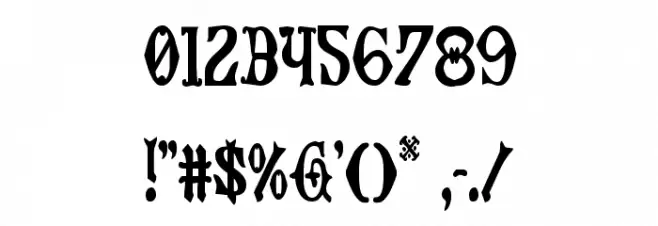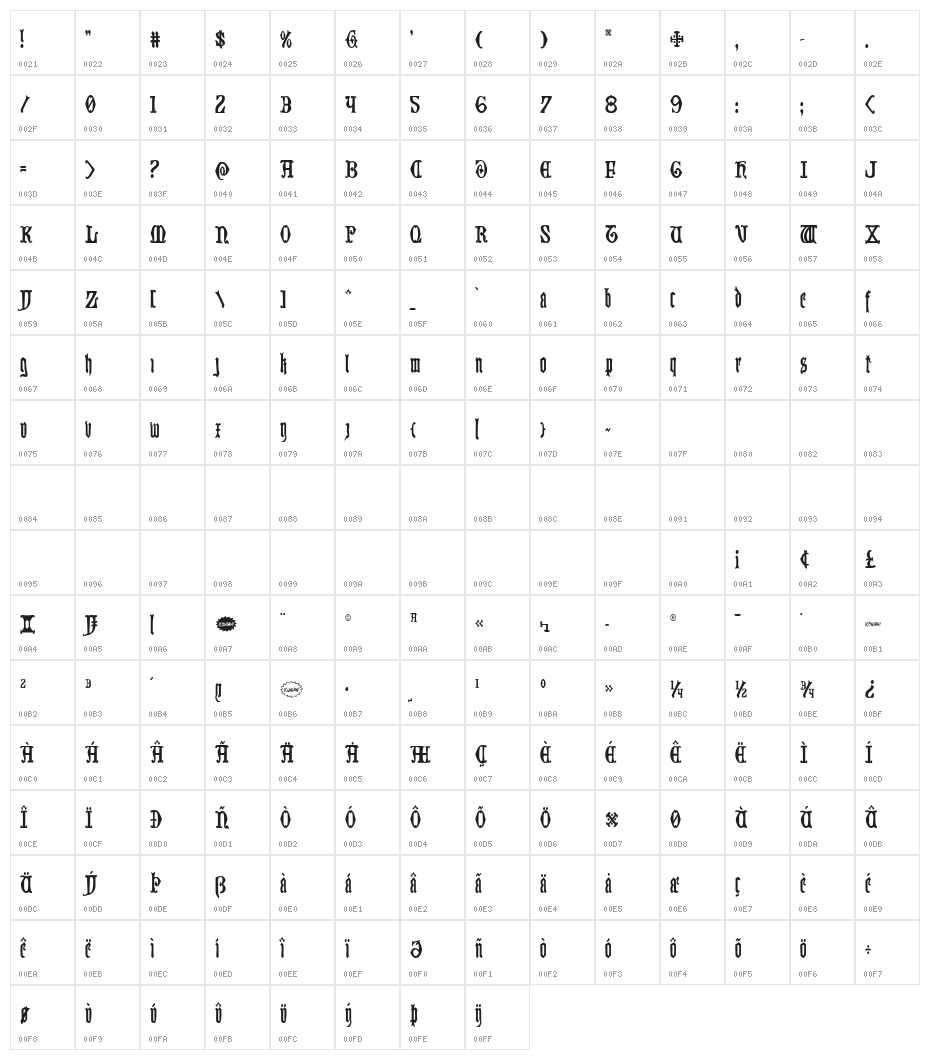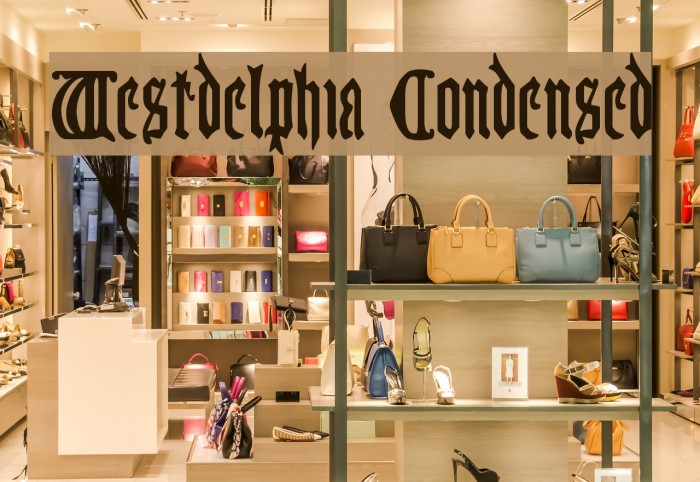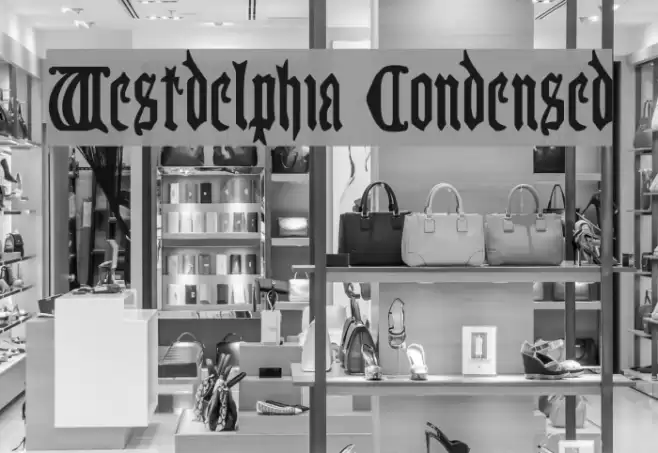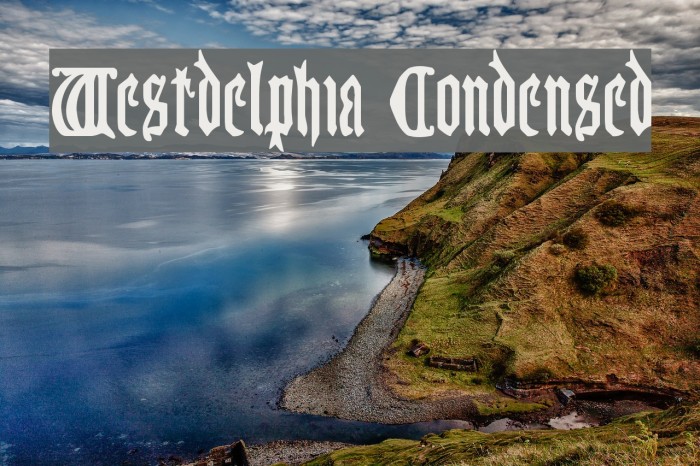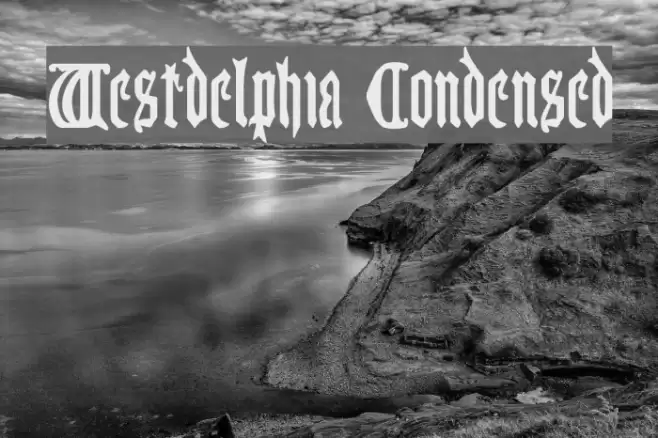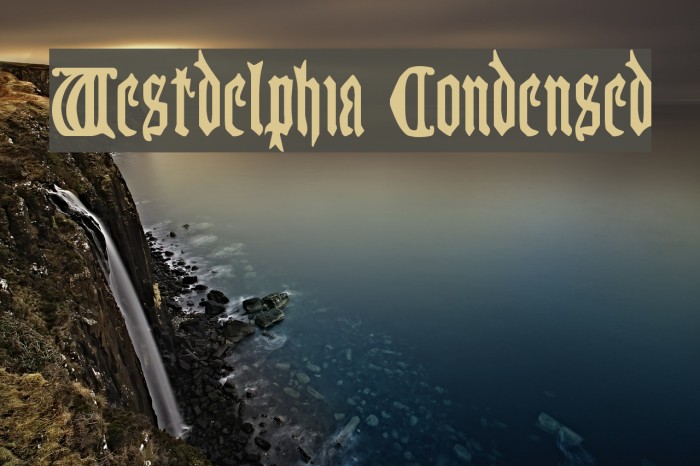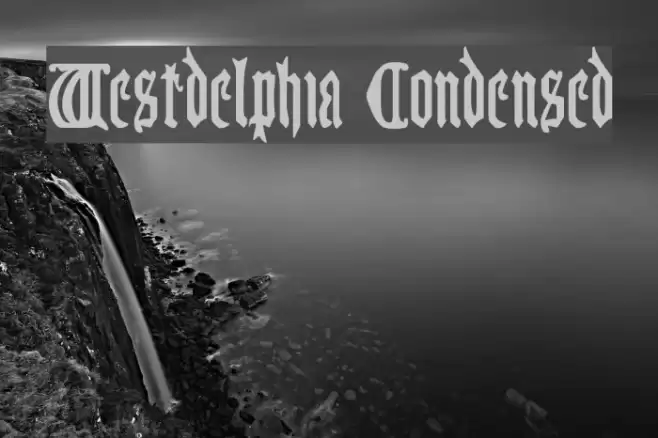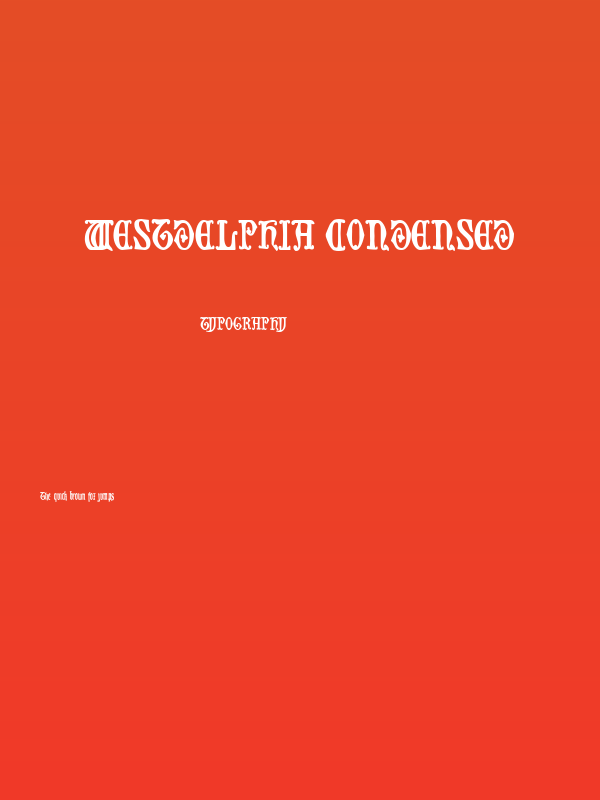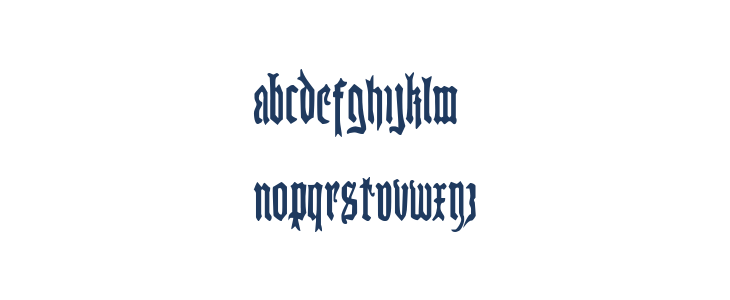
Westdelphia Condensed Font
Westdelphia Condensed Description
This font features a bold and striking blackletter style with intricate details and sharp edges. The uppercase letters are ornate, with unique flourishes and a condensed form that gives a compact appearance. The lowercase letters maintain the decorative style, offering a consistent look throughout. The numerals are equally stylized, adding to the overall gothic aesthetic. Special characters are designed with the same attention to detail, making them stand out. This font is perfect for projects that require a historical or medieval touch, such as themed event posters or vintage branding.
| Use Case | Headlines, Logos, Decorative text |
| Proposed Projects | Ideal for historical-themed designs, vintage branding, event posters, and decorative headings. |